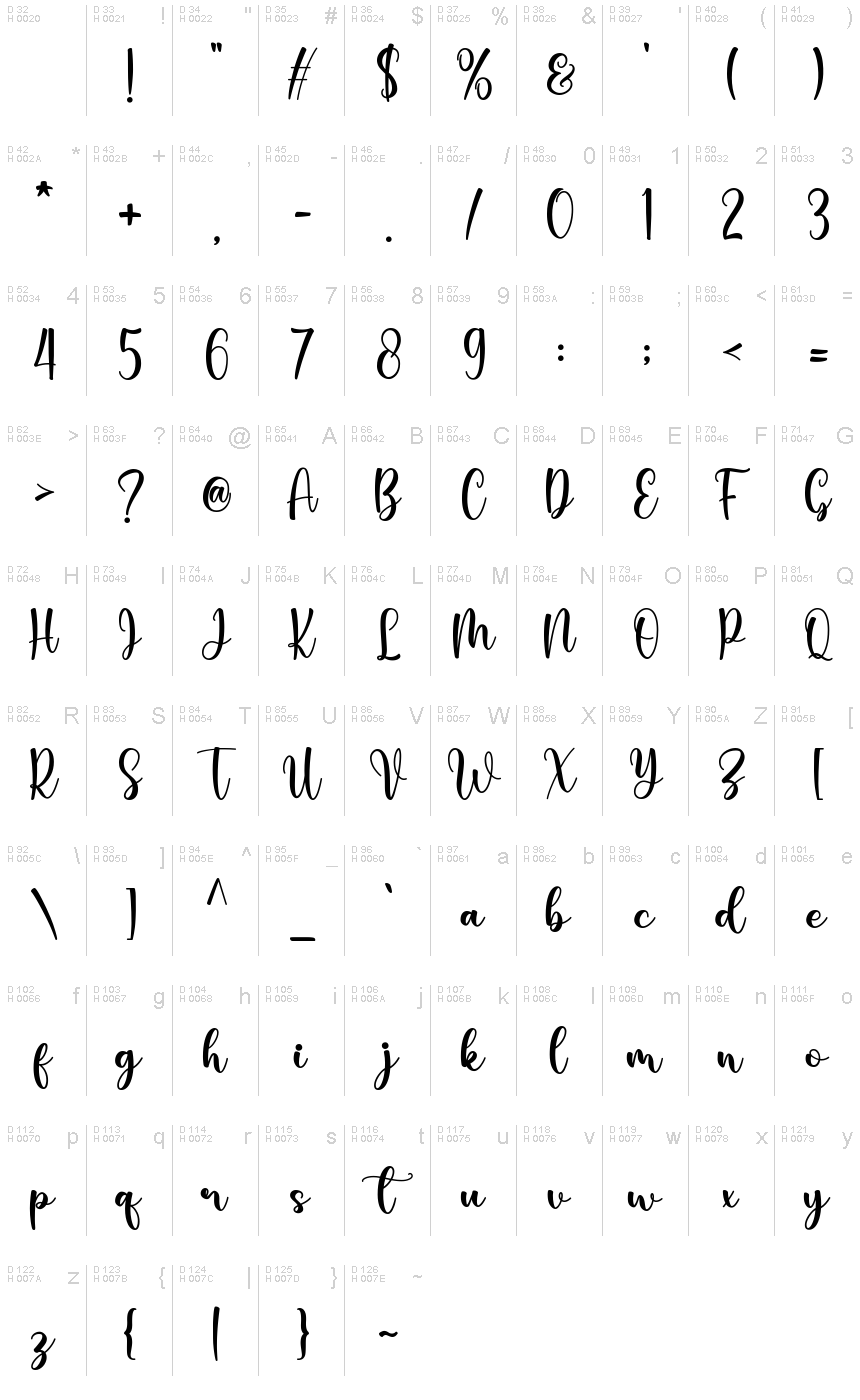
Catalina, crafted by Nirmala Creative, is a font that dances with the elegance of calligraphy, offering a modern twist to traditional penmanship. Its sweeping curves and playful loops evoke a sense of sophistication and flair that captures the viewer's attention. The fluidity of its strokes creates a visual rhythm that's both dynamic and harmonious, making it an excellent choice for designs that require a touch of personality.
In terms of practical application, Catalina shines in contexts where an artistic touch is desired. From wedding invitations and branding materials to literary covers and personalized stationery, this font adds an intimate yet professional quality to any project it graces. Its charm lies in its ability to convey beauty without sacrificing legibility-perfect for those seeking to make a memorable impression.